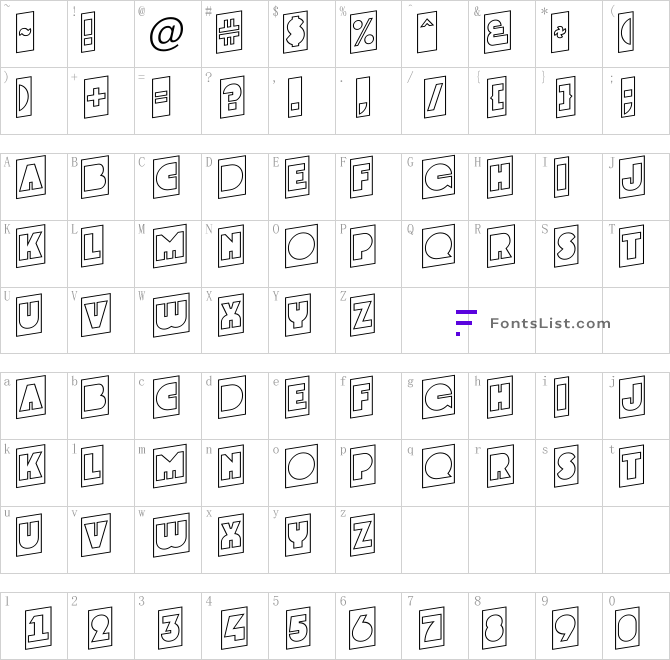
a_GrotoCmOtlUp.ttf is a very beautiful artistic font, a_GrotoCmOtlUp.ttf is widely used in the design and printing of various books and pictures,a_GrotoCmOtlUp.ttf has a strong visual impact,a_GrotoCmOtlUp.ttf is a commonly used font in newspapers, magazines and books, and is used in posters, e-commerce Poster design, store design, logo design, font design and other fields.a_GrotoCmOtlUp.